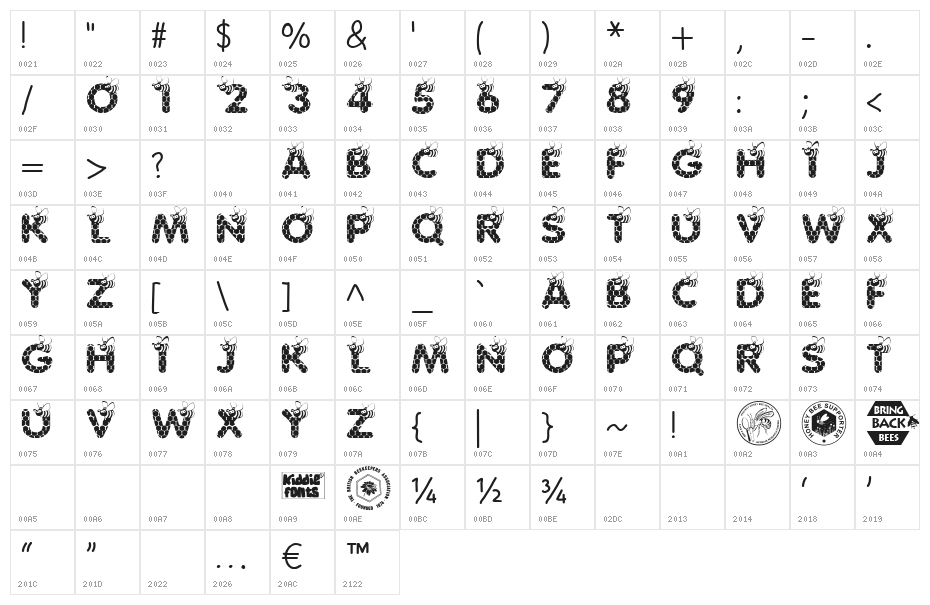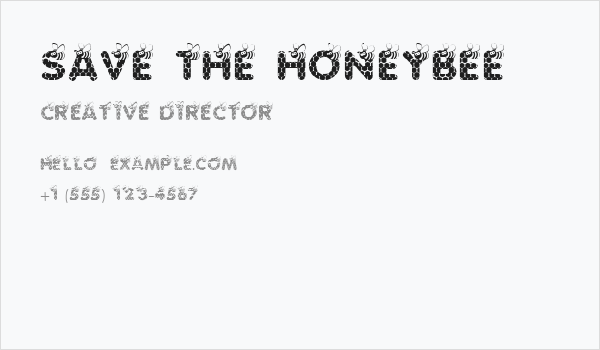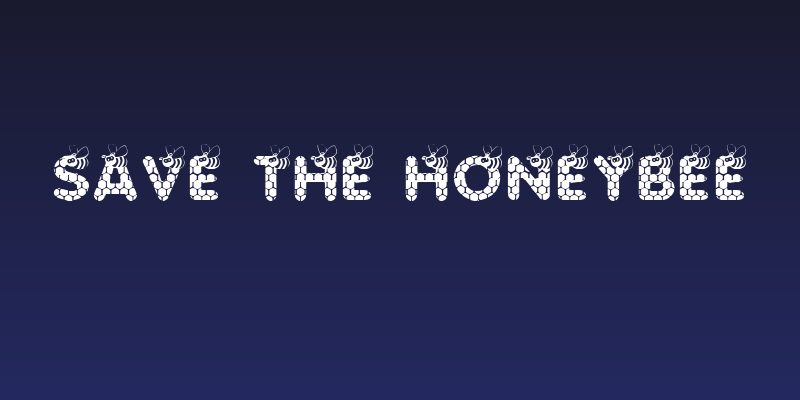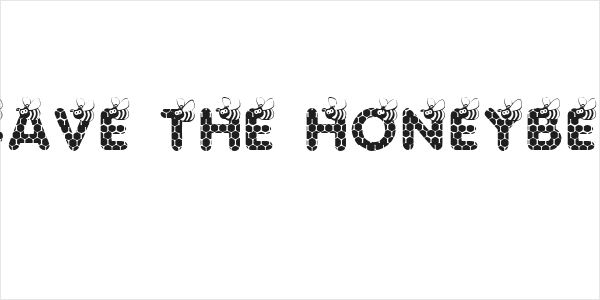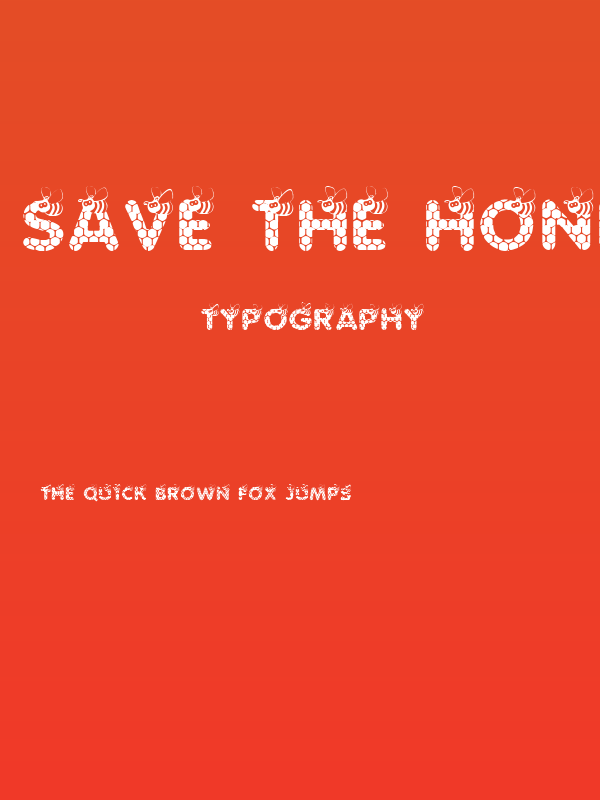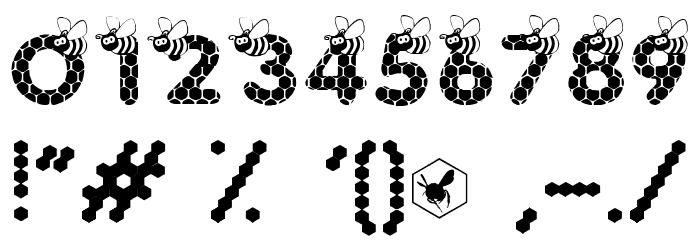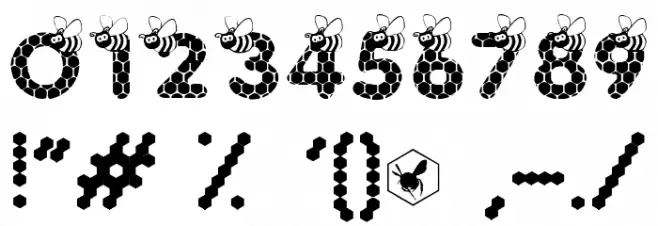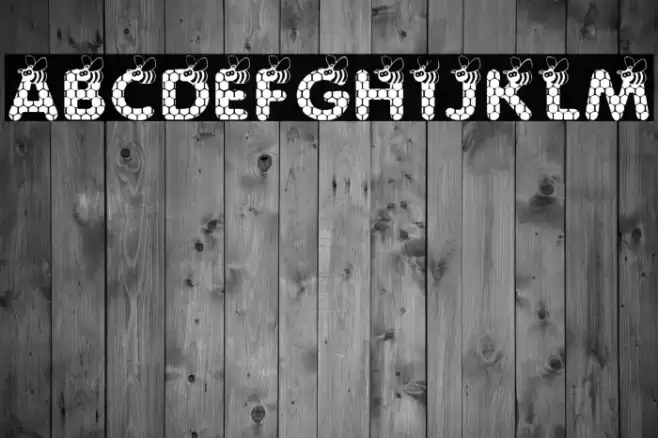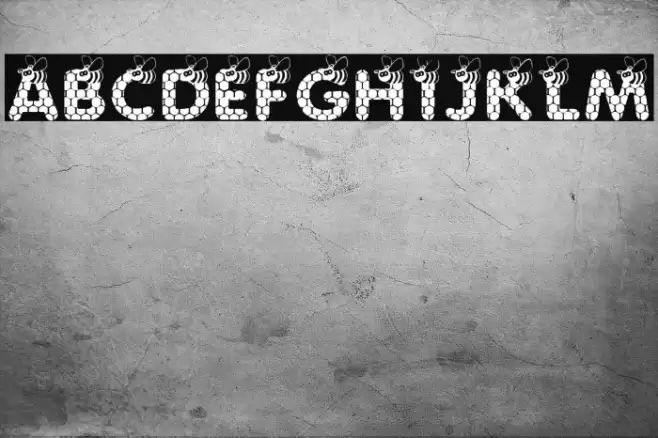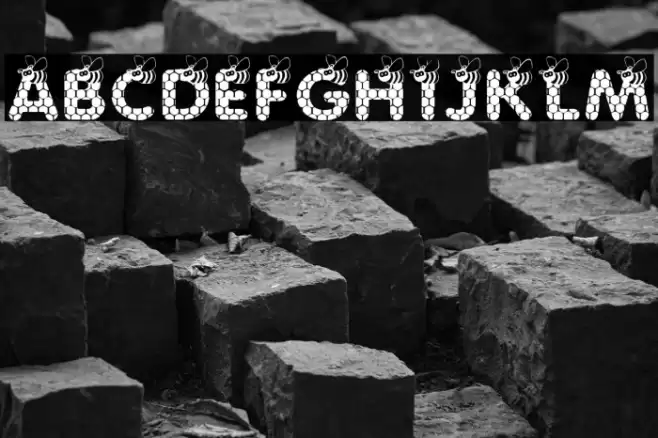
SAVE THE HONEYBEE Font
SAVE THE HONEYBEE Description
This playful and decorative font features a unique honeycomb pattern within each character, accompanied by a charming bee illustration perched on top. The design is whimsical and eye-catching, making it perfect for projects that require a fun and engaging aesthetic. The characters are bold and rounded, providing a friendly and approachable feel. The inclusion of bees adds an element of nature and environmental awareness, making it suitable for eco-friendly themes or campaigns. The font maintains consistency across uppercase, lowercase, and numerical characters, ensuring versatility in various design applications.
| Proposed Projects | Ideal for children's books, eco-friendly campaigns, educational materials, and playful branding projects. |